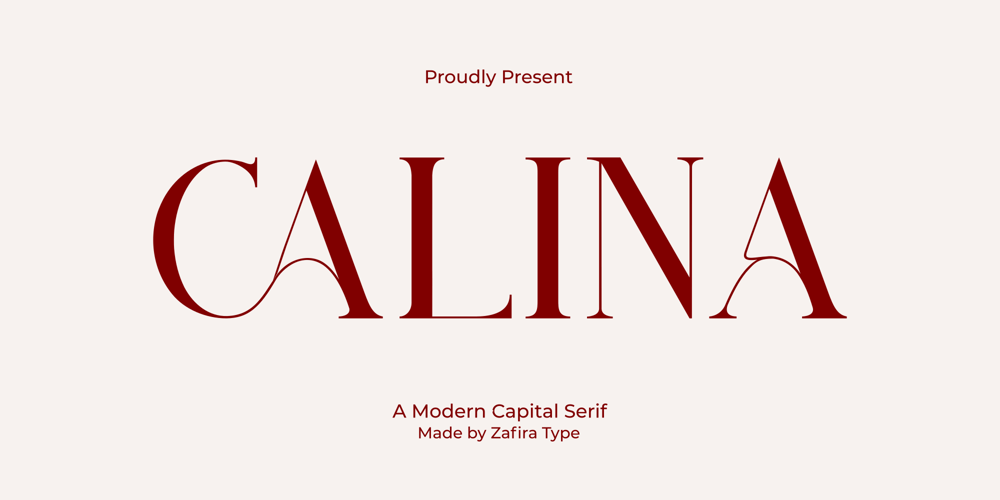
Calina Font Family was designed by Su Hirno and published by Zafira Type. Calina contains 1 styles and family package options. Calina is an elegant, beautiful, and smooth serif font created with a romantic and lovely look. It is perfect for greeting cards, wedding invitations, posters, logotypes, product branding, and much more.This font is PUA encoded which means you can access all of the amazing glyphs and ligatures with ease!